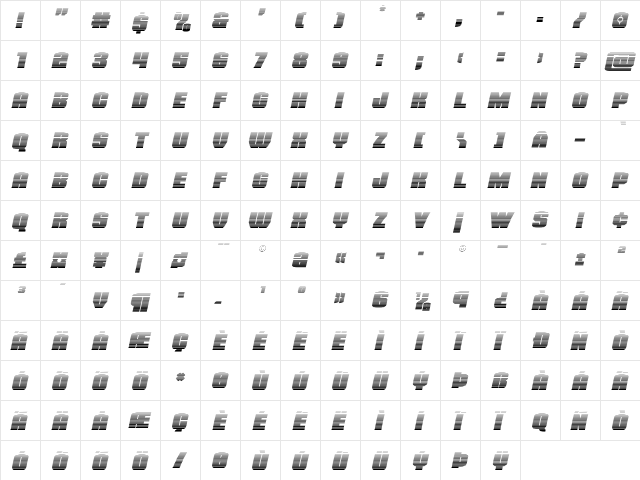
Elephant Gun Gradient Italic Regular
Design Context for Elephant Gun Gradient Italic Typeface
Elephant Gun Gradient Italic offers clean, dependable letterforms without strong stylistic allegiance, making it a practical choice for designers who need flexibility. The slanted form adds forward momentum and visual energy.
Pro Tip: Use Elephant Gun Gradient Italic for emphasis, pull quotes, and subheadings where its slanted energy can add rhythm to the layout.